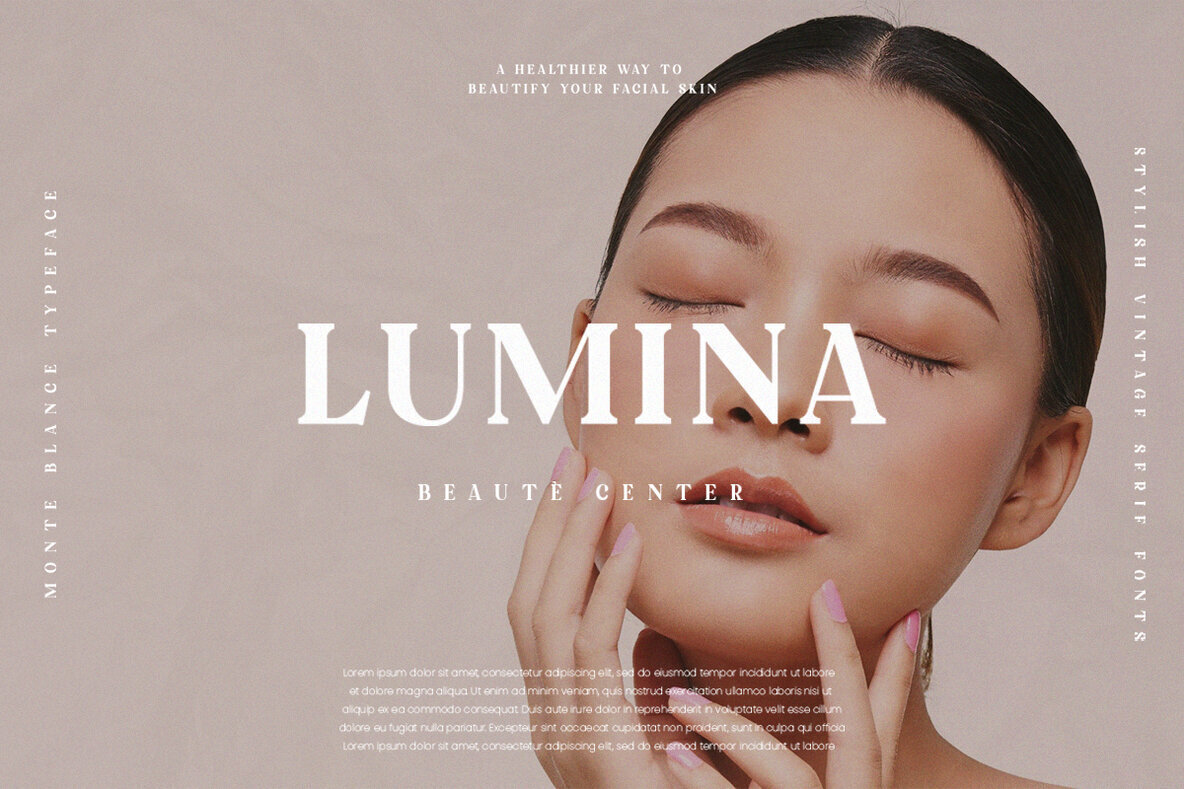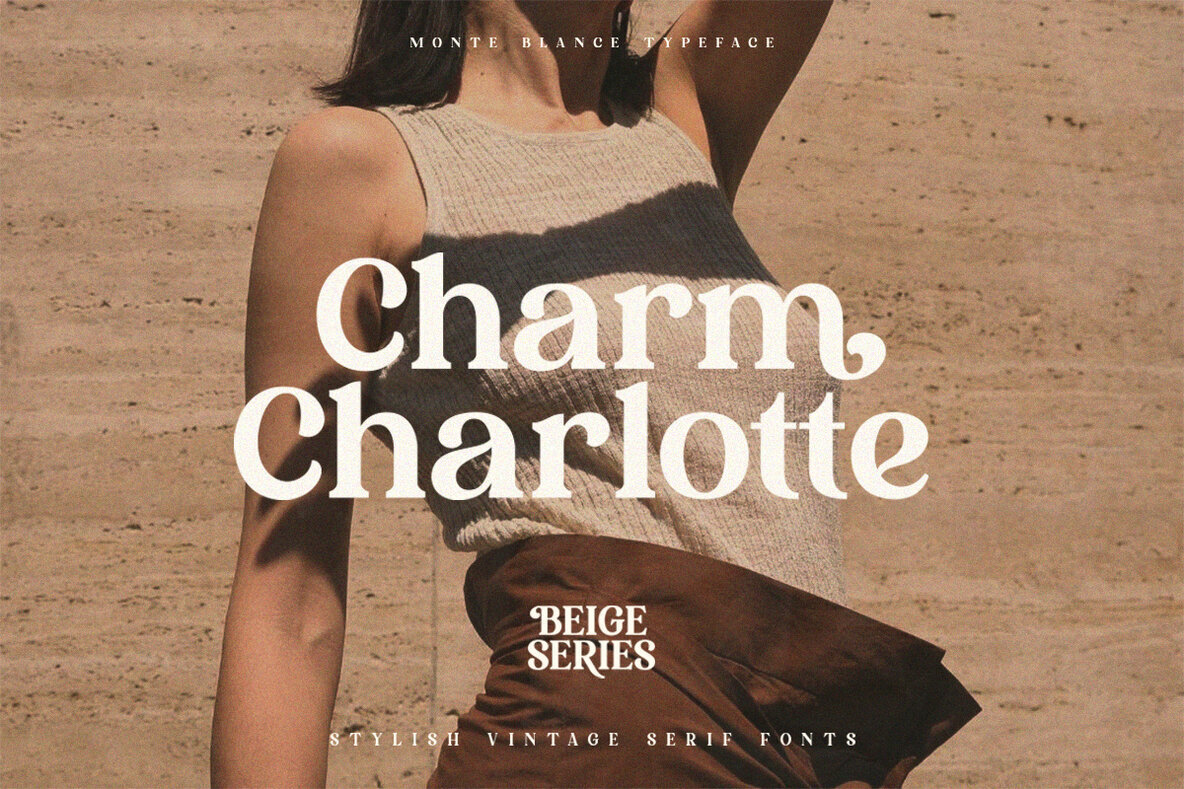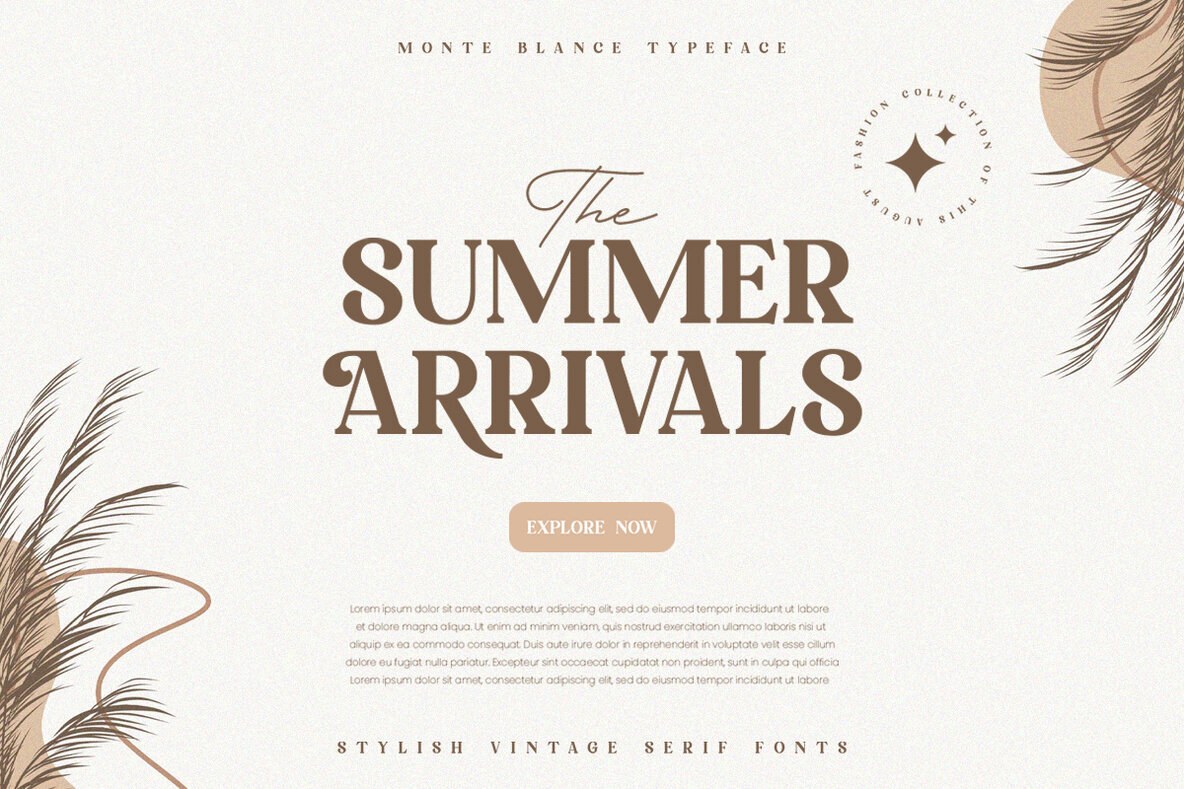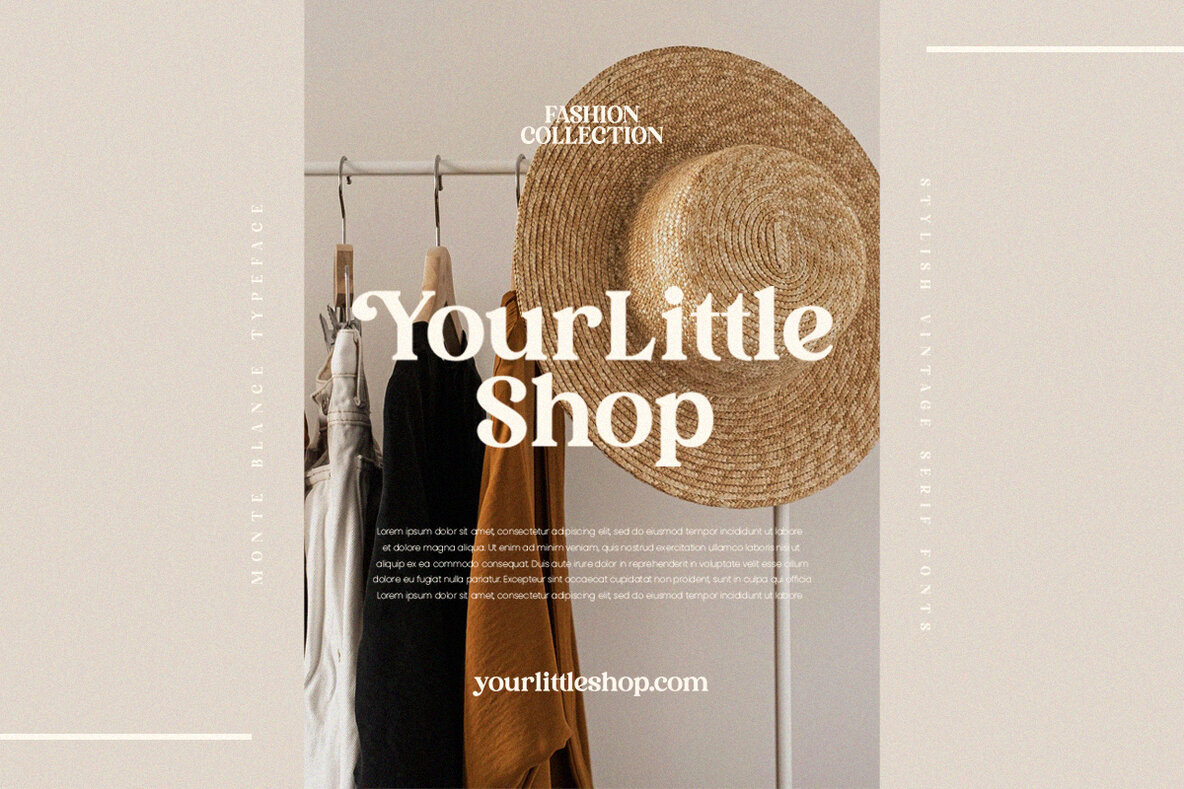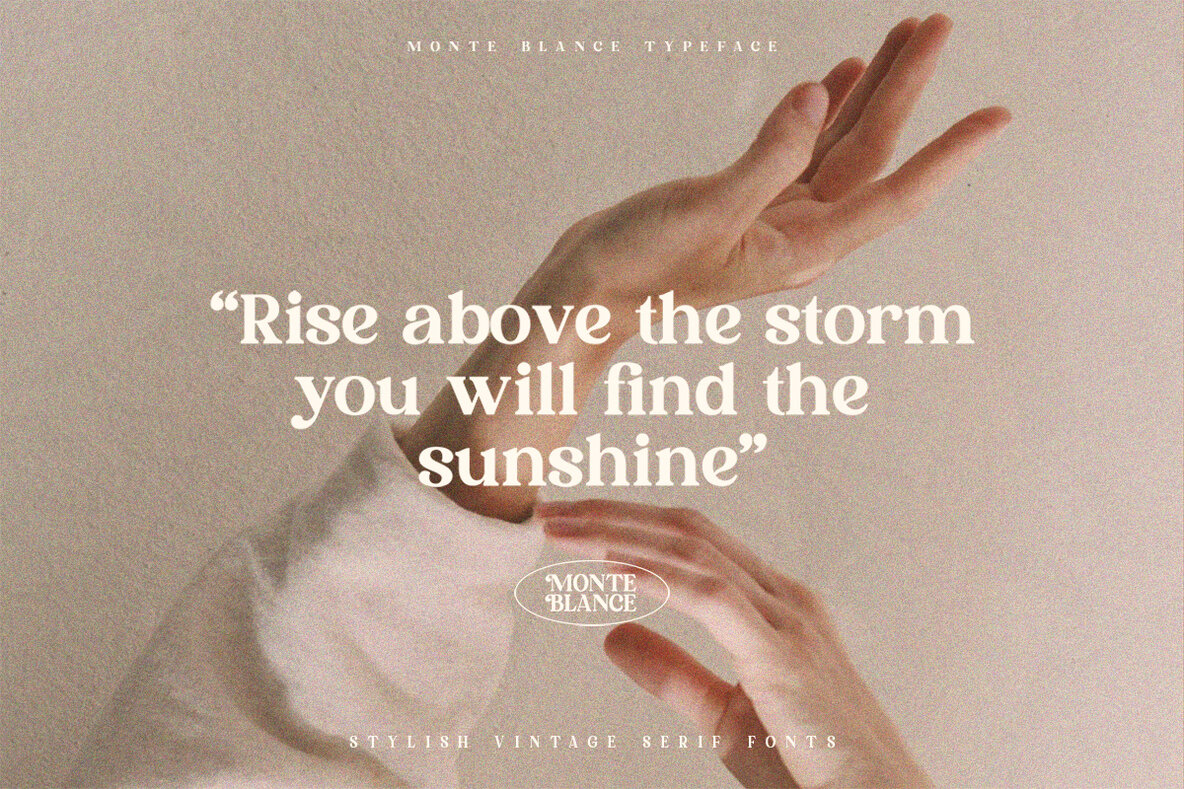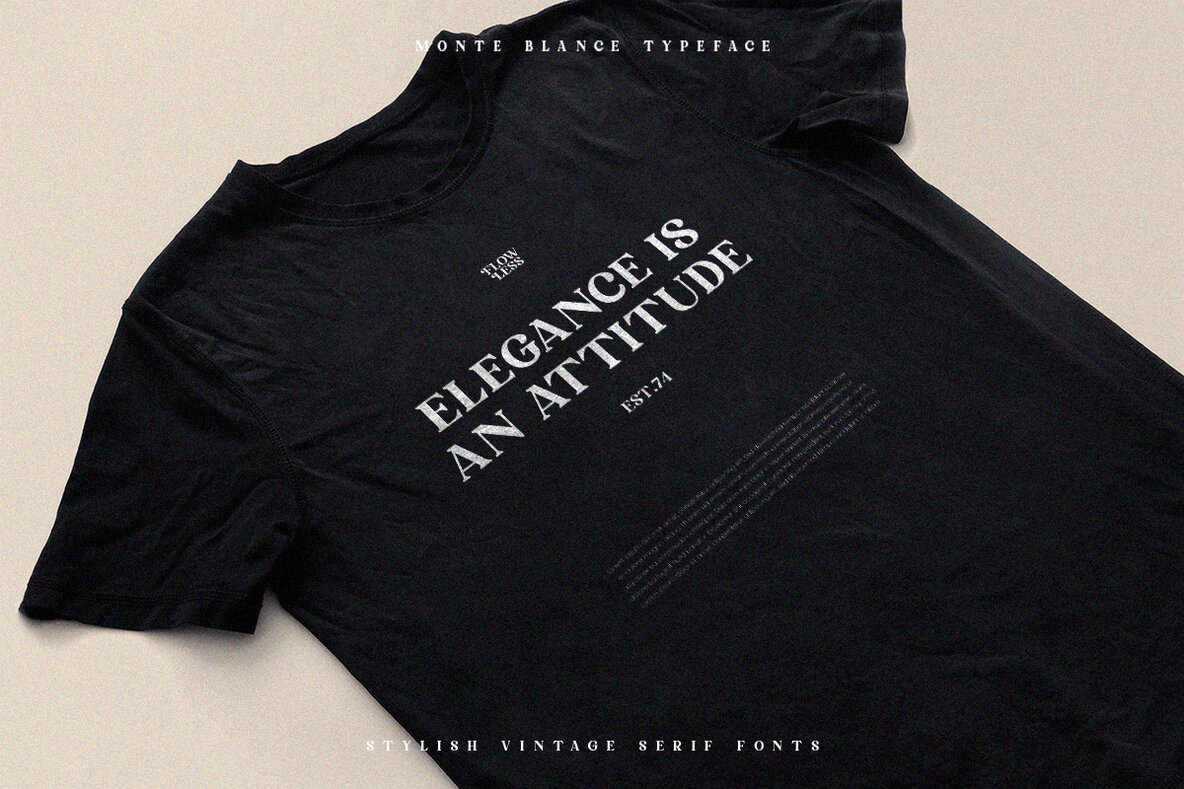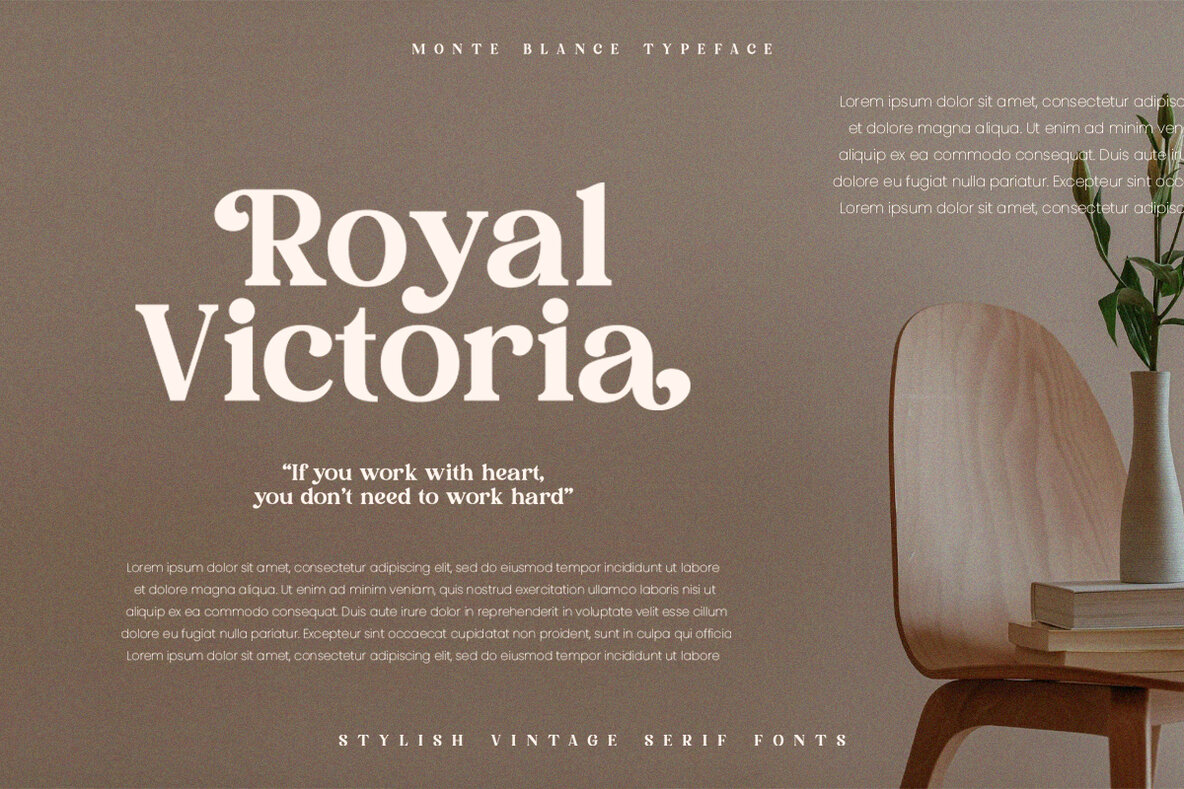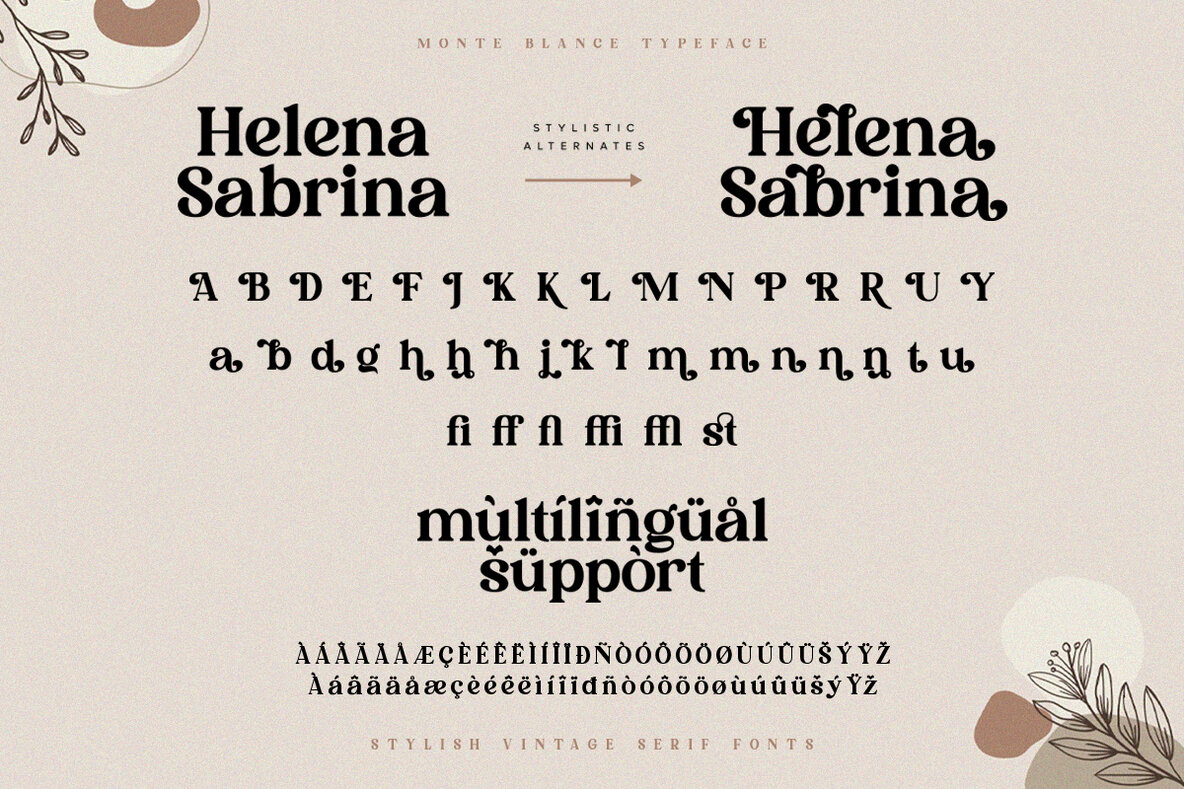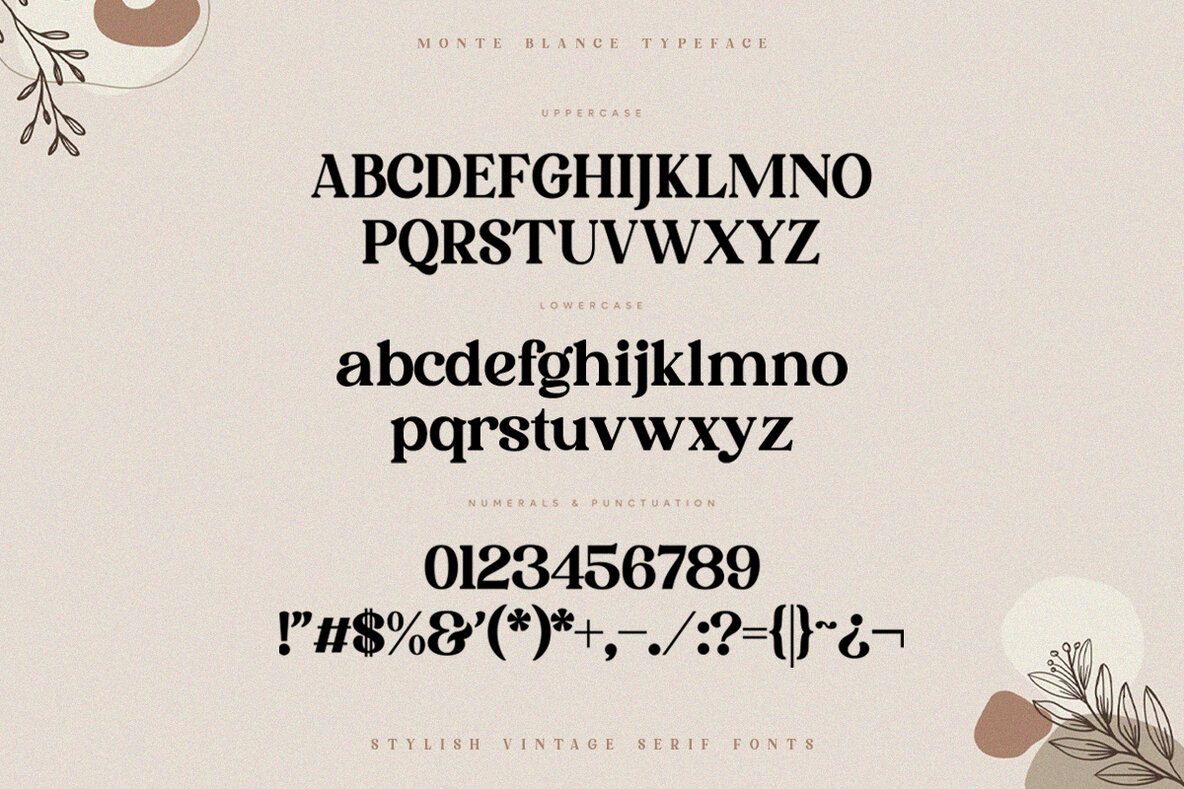
Monte Blance Font
MonteBlance is an elegant typeface that can be used for any branding purpose. This stylish serif has ligature & alternate versions to suit your needs in both large or small print settings as well as with italics!